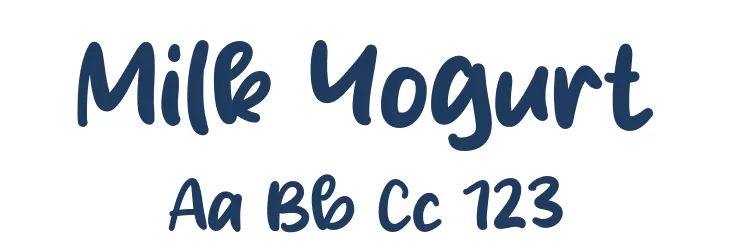
A bold, playful font with rounded edges and a bubbly appearance.
A bold, playful font with rounded edges and a whimsical, retro feel.
A playful, rounded font with a hand-drawn feel, ideal for casual designs.
A playful, rounded font with bold, uniform strokes and a friendly vibe.
A playful, bold font with rounded, bubbly characters perfect for fun and creative projects.
A playful, handwritten font with a casual and friendly style.
A playful, bold handwritten font with rounded edges and a casual style.
A lively and energetic handwritten font with bold, fluid strokes.
A bold, handwritten font with a playful and energetic style.
A bold, playful handwritten font with rounded strokes and a lively appearance.
A playful, handwritten-style font with bold, rounded strokes.
A playful, handwritten font with rounded, consistent strokes and a whimsical style.
A bold, playful handwritten font with rounded edges and a whimsical style.
A playful, bold, and handwritten-style font with thick strokes and rounded edges.
A bold, playful handwritten font with a smooth, flowing style.
A playful, handwritten font with smooth, flowing lines and a casual style.
A bold, rounded, handwritten-style font with a playful and energetic vibe.
A playful and dynamic script font with a handwritten appearance.